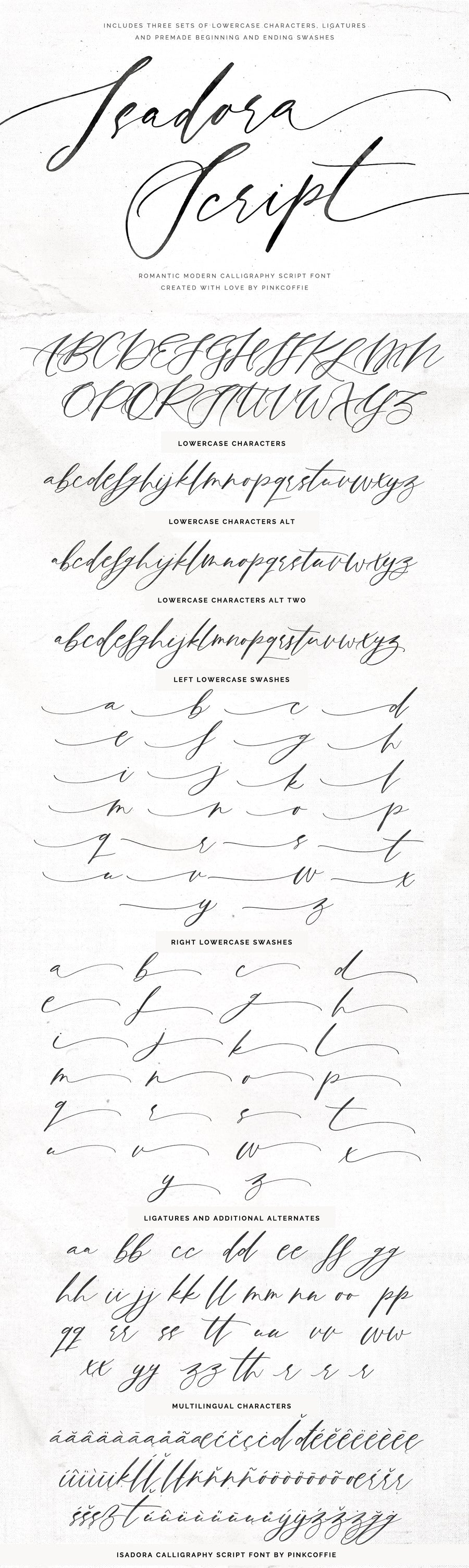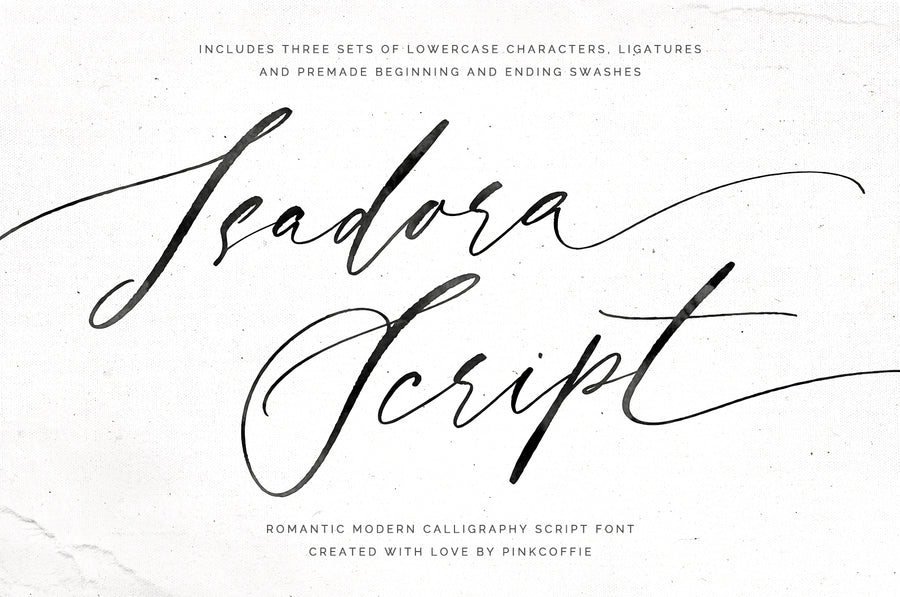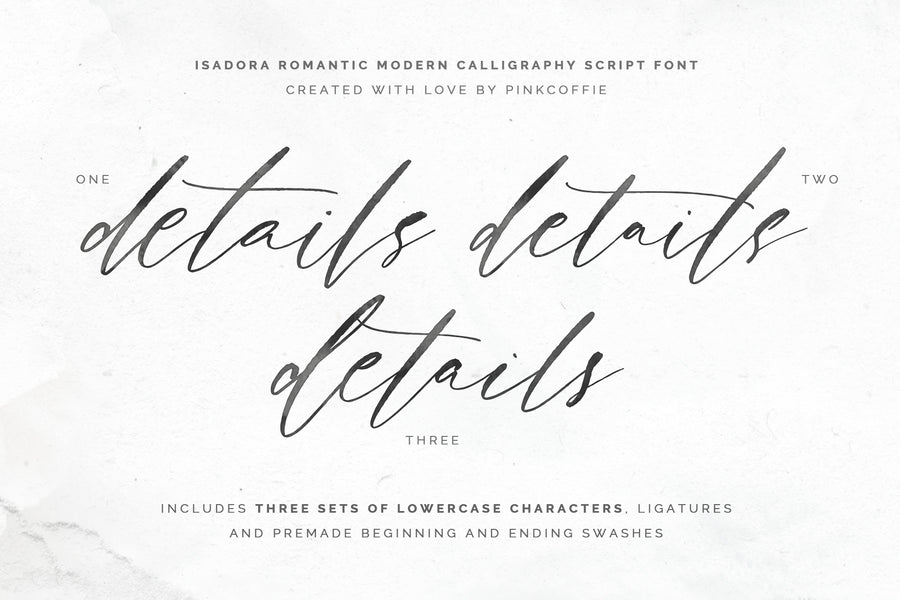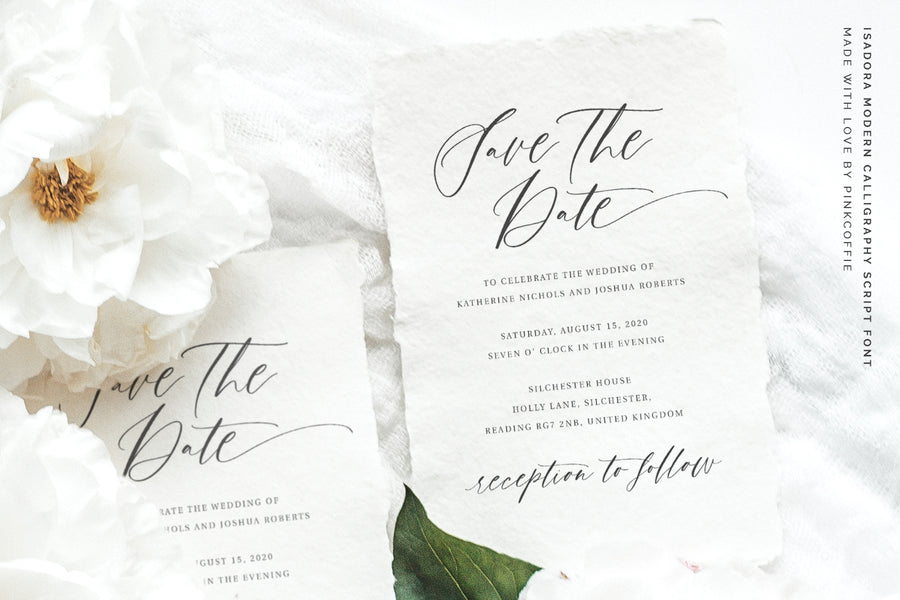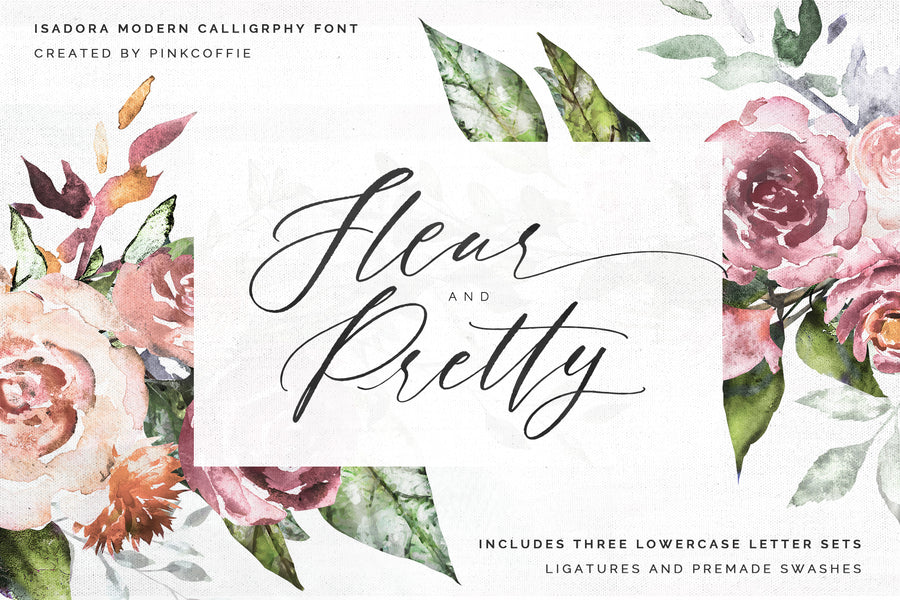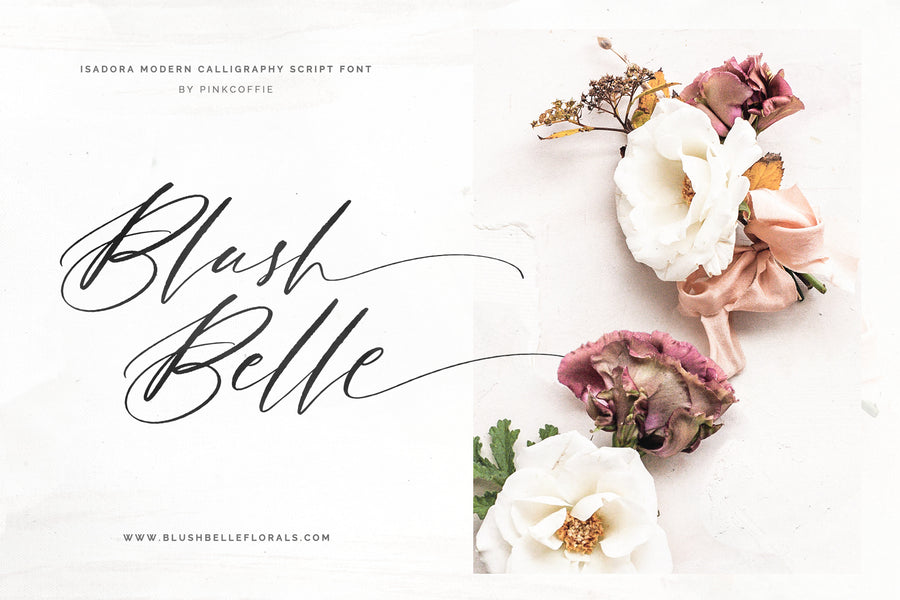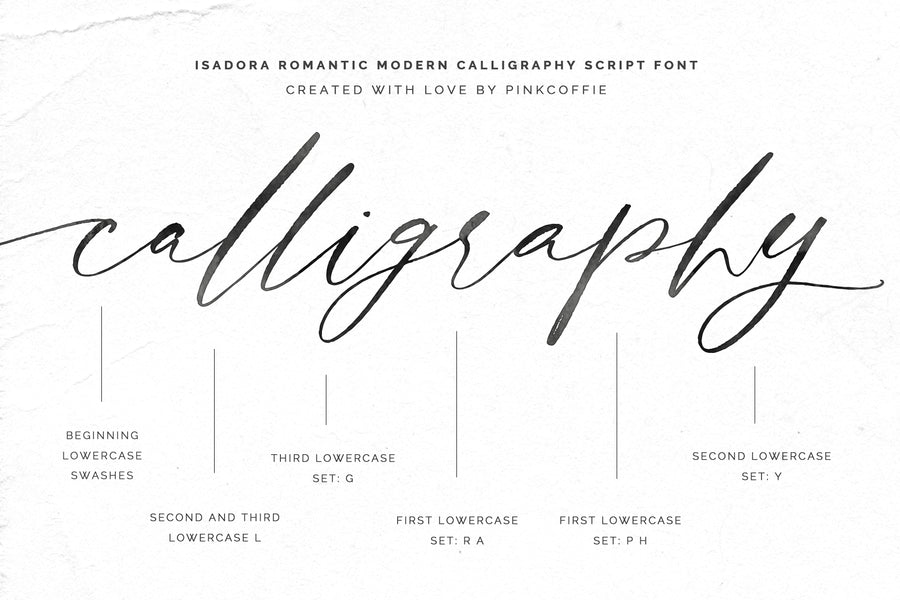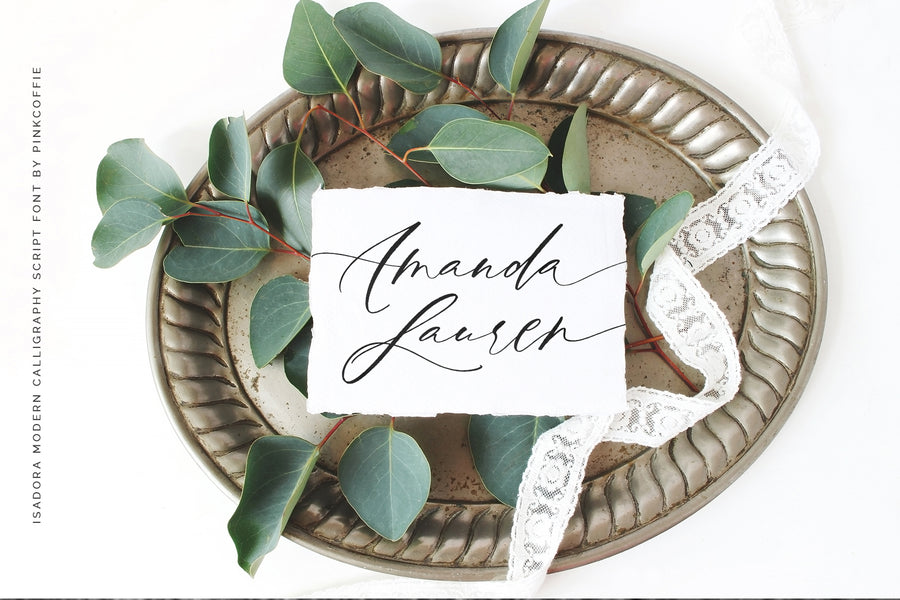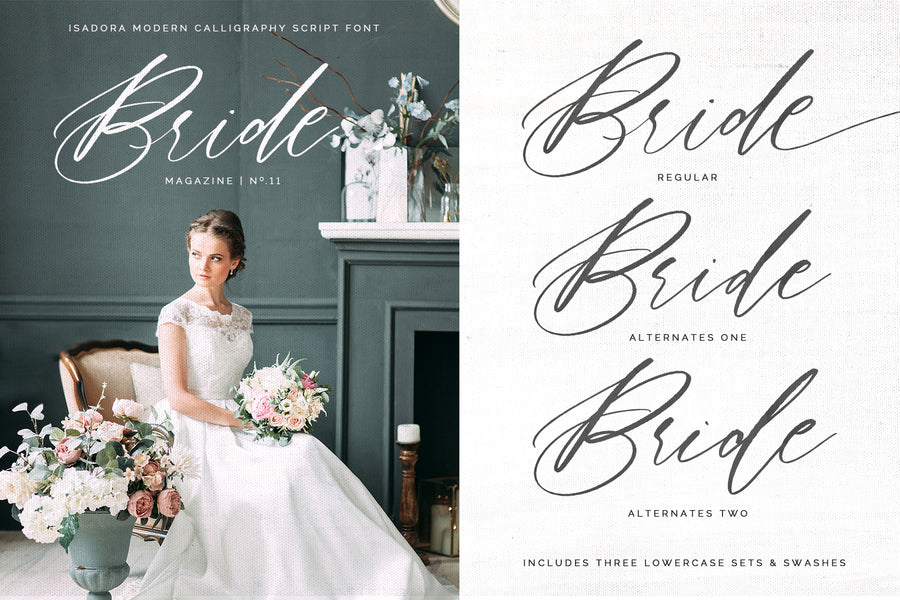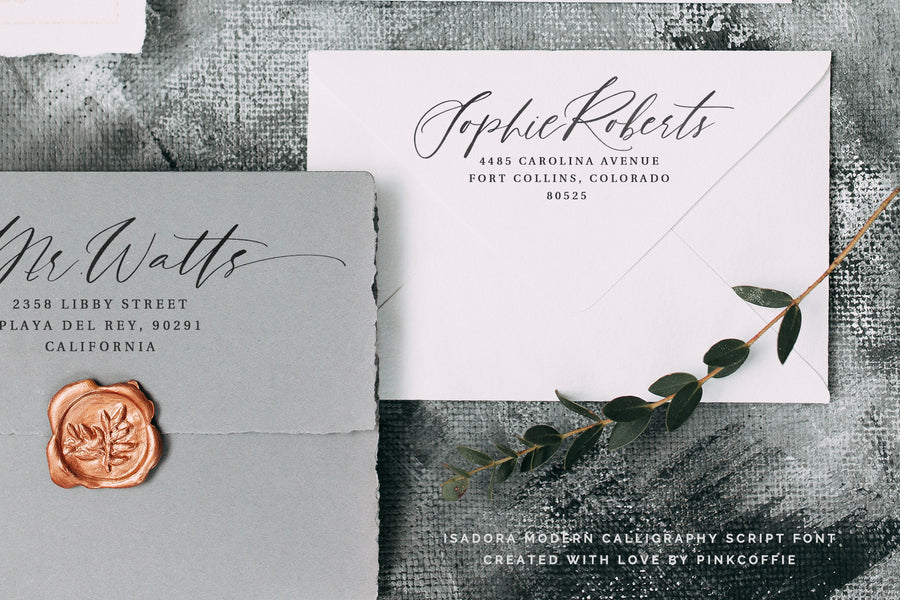
Isadora I Rustic Wedding Script Font
Say hello to Isadora - a romantic modern calligraphy script featuring organic inky edges, three lowercase letter sets, premade beginning and ending lowercase swashes, double-letter ligatures, additional letter alternates, and as always, multilingual support. ❤
Isadora is versatile enough to suit a variety of projects such as wedding invitations, cards, stationery, logo, branding designs & social media graphics and is the perfect choice if your project needs a rustic edge calligraphy font with a wide variety of letter sets, swashes, and ligatures to achieve that natural hand-lettered look.
- MULTILINGUAL SUPPORT - Like all my other fonts, Isadora Script includes multilingual support and the following multilingual characters: